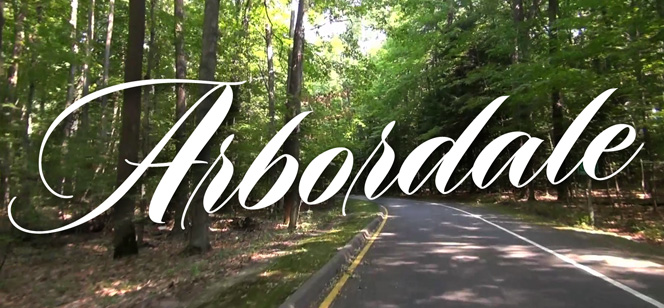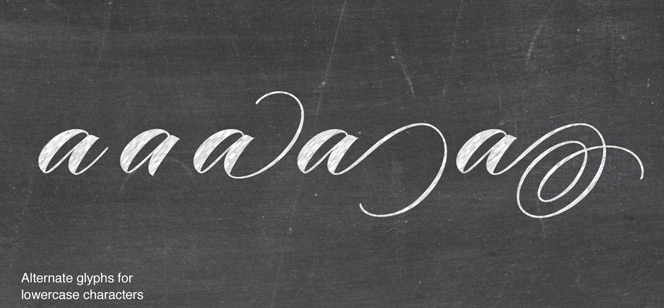
Arbordale font
Arbordale font is an elegant calligraphic script face. Combining beauty with enhanced legibility is one of its most significant features – many script fonts are not easy-to-read though, especially for short words, might look really awesome. Arbordale has a lot of the originality and elegance distinctive for calligraphic scripts but it also has an even rhythm and perfect flow between characters resulting in excellent readability. Contrast is another important detail here – Arbordale is a beautiful combination of thick, strong strokes with thin light connections and ornaments. Contrast plays big role and makes Arbordale a desired font for many different purposes – food, tea, chocolate, coffee packaging, wedding invitations, wine labels, t-shirts, jewelry and fashion logos. Making custom solutions here is very easy – Arbordale font is fully OpenType compatible with its extended set of alternates, ligatures and multilingual diacritics. Use the Pro version and you will definitely get maximum of its functionality and beauty.